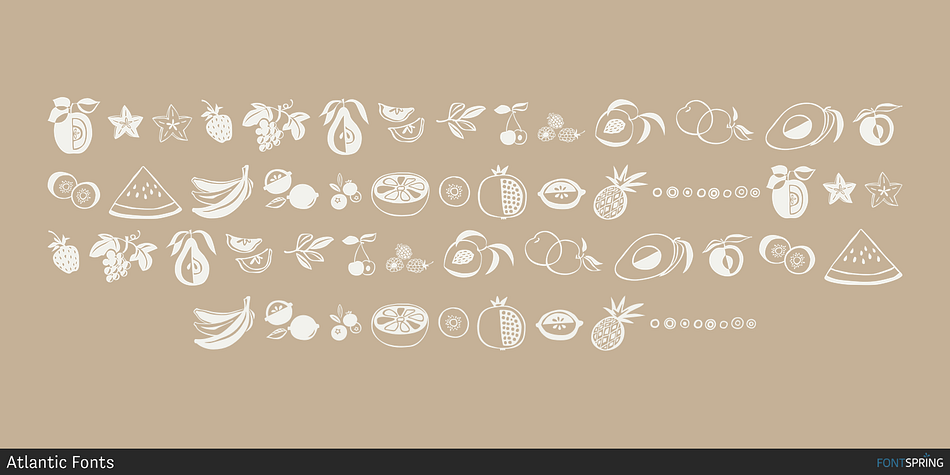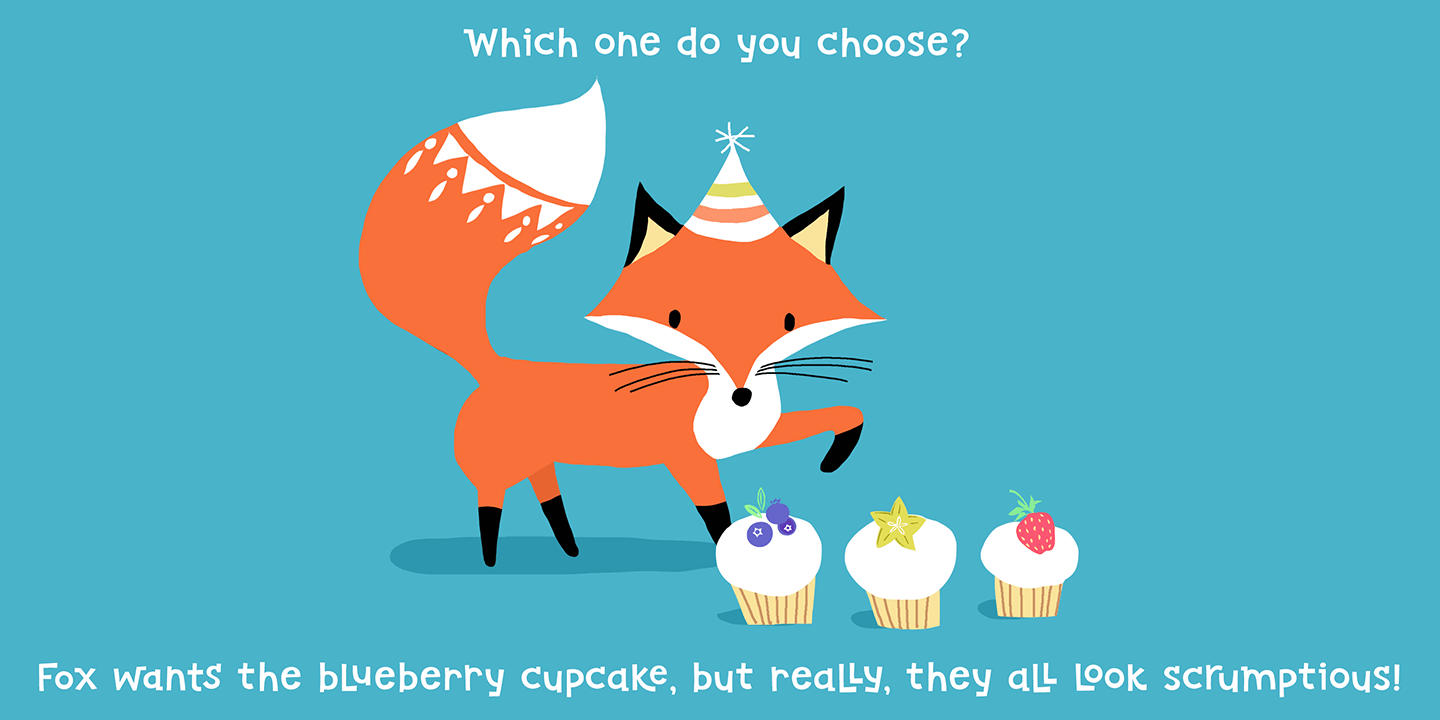
Kiwi Fruits
Kiwi is a dingbat and hand drawn font family. This typeface has two styles and was published by Atlantic Fonts.
Kiwi gives natural energy to every project with its sweet and spirited forms and a variety of tasty options.
Kiwi gives natural energy to every project with its sweet and spirited forms and a variety of tasty options. Be bold using it as all-caps including its fun set of discretionary double-letter ligatures, or be distinctly playful, combining upper-lower, with bushels of loosely interlocking ligatures. Kiwi font family also includes delicious Kiwi Fruits, a striking and juicy collection of graphic fruit illustrations by illustrator, Amy Dietrich. For inviting packaging, magazine, and books, or say, a cool-looking apple for your cider pressing party invite, Kiwi is a great pick. Shown here with Quince font, also by Atlantic Fonts.